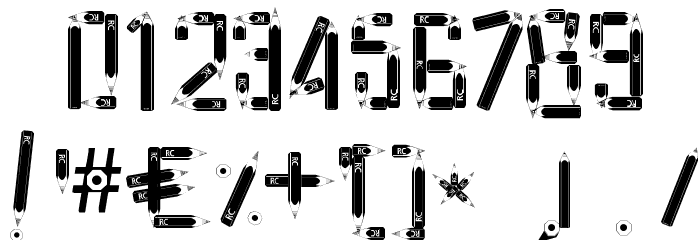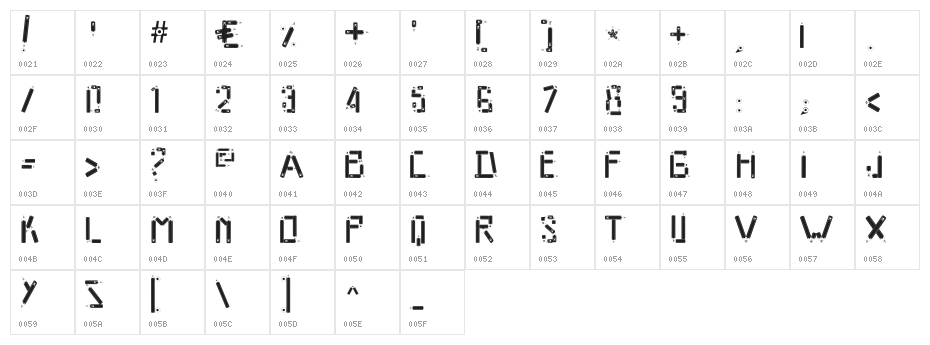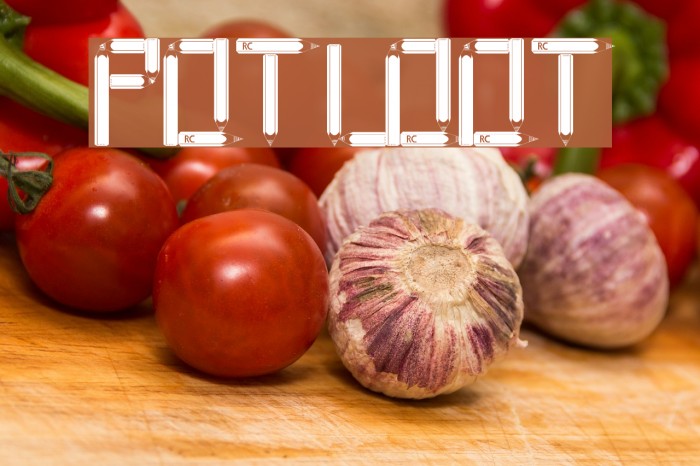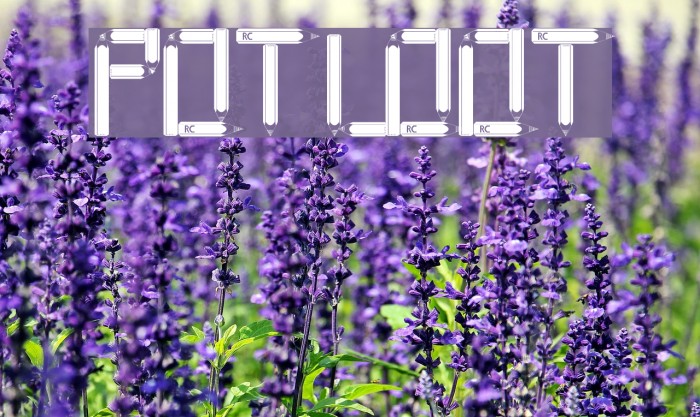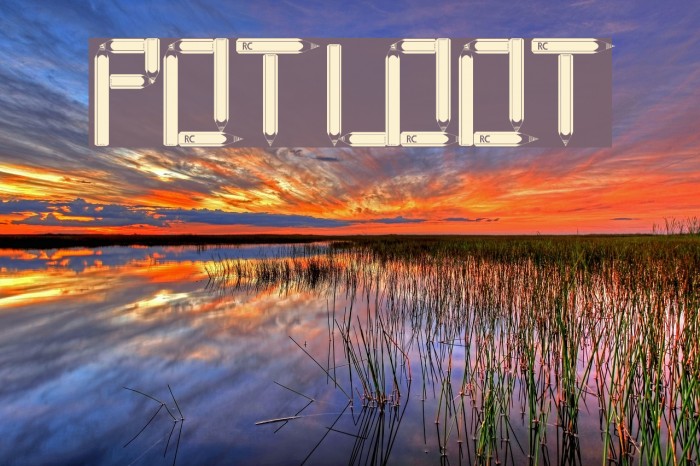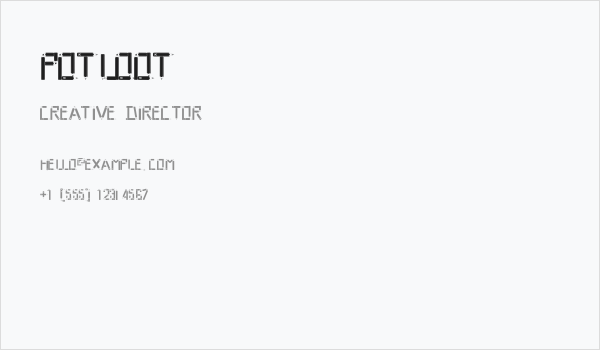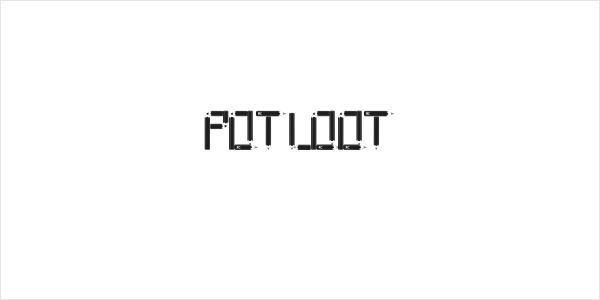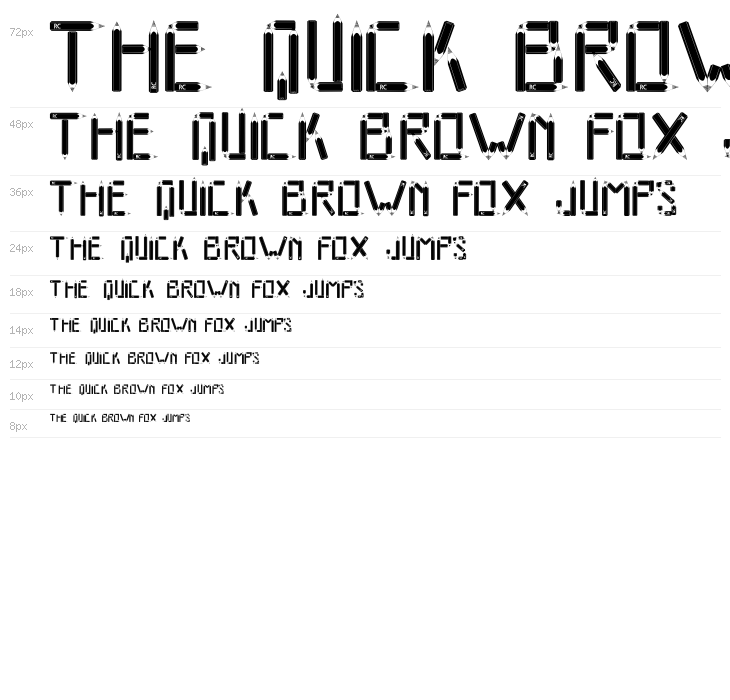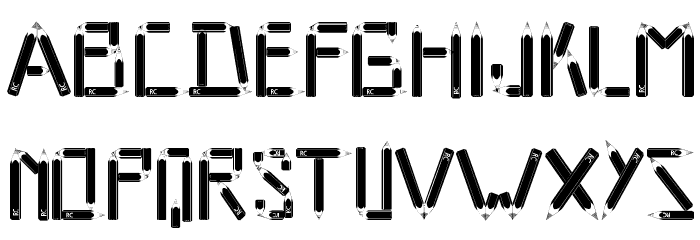
POTLOOT Font
POTLOOT Description
This font features a unique and playful design where each character is constructed using pencil illustrations. The letters are bold and geometric, with a distinct emphasis on creativity and artistic flair. The pencils are arranged to form each letter, number, and symbol, giving the font a handcrafted and whimsical appearance. This design is particularly eye-catching and would appeal to audiences looking for something unconventional and artistic. The font maintains a consistent style across uppercase, lowercase, numbers, and special characters, ensuring a cohesive look.
| Overall Style | Whimsical and Artistic |
| Proposed Projects | Ideal for educational materials, art-themed posters, children's books, and creative branding. |